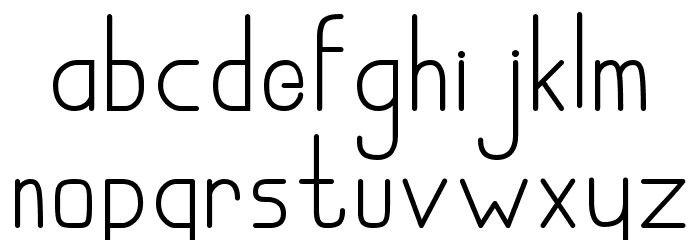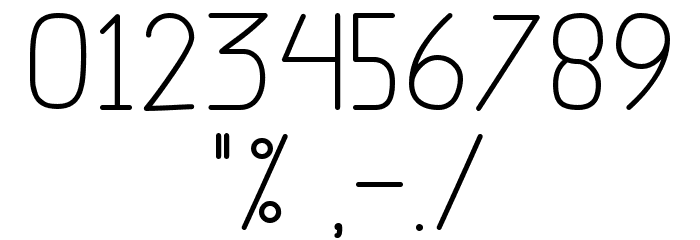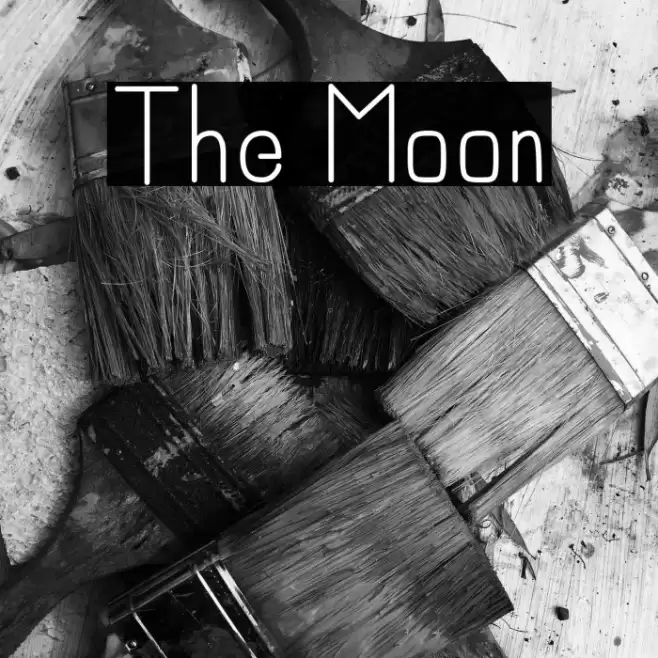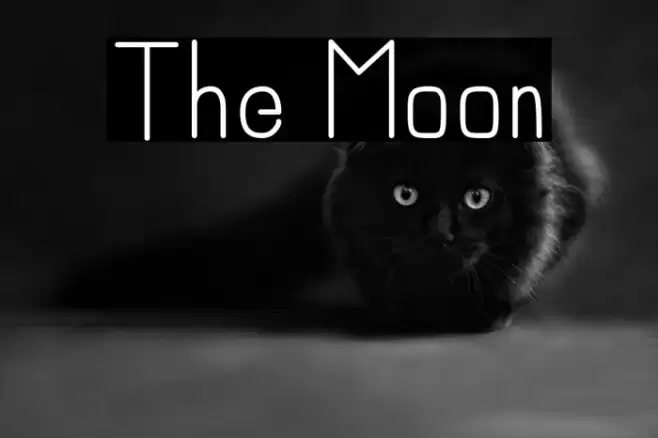
The Moon Font
This font features a clean, geometric design with a modern aesthetic. The characters are composed of straight lines and curves that create a harmonious balance. The uppercase letters are tall and narrow, while the lowercase letters maintain a consistent height, contributing to a uniform appearance. The numerals are distinct and easy to read, with a similar geometric style. Special characters are designed to complement the overall look, making this font versatile for various applications. The simplicity and clarity of the design make it suitable for both digital and print media.
A modern, geometric font with clean lines and a uniform appearance.
- Proposed Projects: Ideal for branding, digital media, posters, and minimalist design projects.